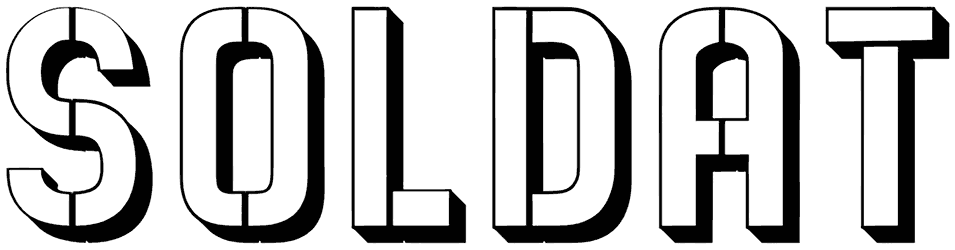
Soldat Font
With a distinct 3D and hollow face, your words can catch a lot of attention. As a stencil font, Soldat has decorated sans-serif letters and conveys a powerful vibe. There is no offer for lowercase and most punctuation marks, but still, this shadow font can represent a cool option for various designs, from cartoons to posters.